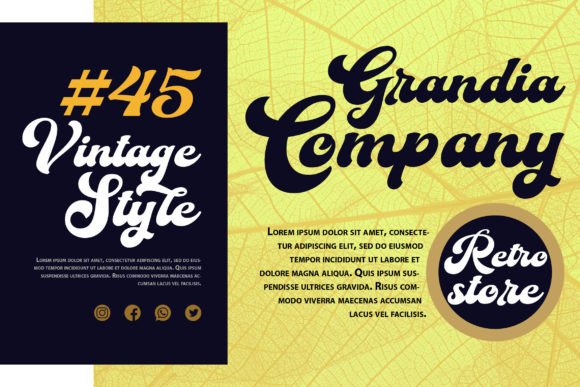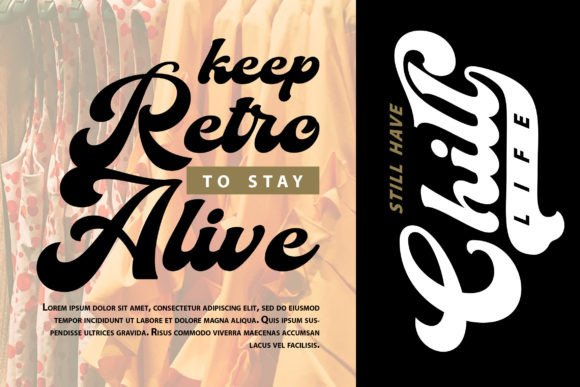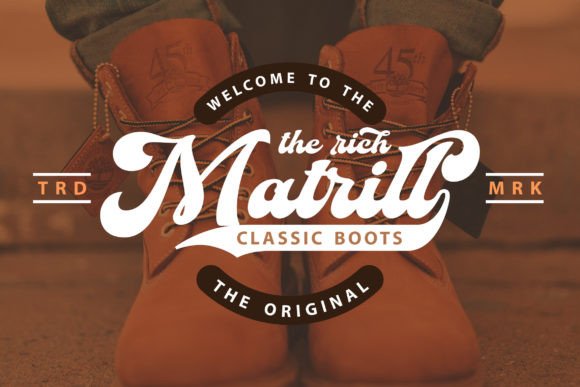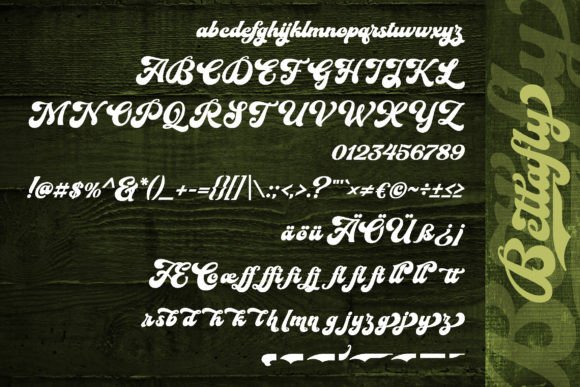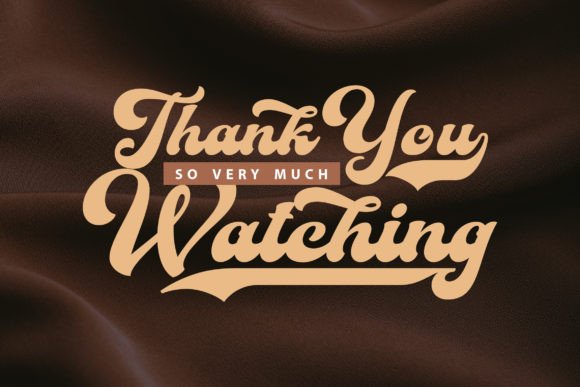
Bettafly Font: Elevate Your Creativity with Elegance
In the world of typography, a font can make all the difference in transforming a simple design into a masterpiece. For those seeking a touch of elegance and magic in their creative projects, the Bettafly Font is an exceptional choice. This carefully crafted script font is designed to bring a sense of sophistication and whimsy to any design, making it perfect for a wide range of applications, from Instagram posts to DIY calligraphy projects.
The Charm of Bettafly Font
Bettafly is more than just a font; it’s a tool for artists, designers, and crafters to express their creativity and bring their ideas to life. Its magical script style, infused with elegance, ensures that any project stands out. Whether you’re working on a digital platform or a handmade craft, Bettafly Font adds a unique charm that captivates the audience.
One of the key advantages of the Bettafly Font is its versatility. It’s incredibly adaptable, making it suitable for various creative projects. Here are a few ways you can use Bettafly Font to elevate your work:
- Instagram and Social Media: In the digital age, standing out on social media is crucial. Bettafly Font can help you create eye-catching Instagram posts, stories, and bio quotes that reflect your personality or brand.
- DIY Projects: For crafters and DIY enthusiasts, Bettafly Font can add a professional touch to handmade cards, journals, and home decor items. Its calligraphy script style brings a level of sophistication to any craft project.
- Branding and Marketing: Businesses can also benefit from using Bettafly Font in their branding and marketing materials. Its unique and elegant style can help create a memorable brand identity.
Why Choose Bettafly Font?
With so many fonts available, why should you choose Bettafly for your projects? Here are a few compelling reasons:
- Elegance: Bettafly Font exudes elegance, making it perfect for projects that require a touch of sophistication.
- Readability: Despite its script style, Bettafly Font maintains a high level of readability, ensuring that your message is conveyed clearly.
- Uniqueness: In a sea of common fonts, Bettafly stands out with its unique magical script style, ensuring your projects don’t go unnoticed.
Tips for Using Bettafly Font
To get the most out of Bettafly Font, consider the following tips:
- Pair it Wisely: Combine Bettafly Font with complementary fonts to create visual interest. A simple sans-serif font can work well for headings and body text.
- Play with Colors: Don’t be afraid to experiment with different colors. Bettafly Font looks stunning in metallic ink, pastels, and bold colors.
- Experiment with Sizes: Varying font sizes can add depth and hierarchy to your design. Use larger sizes for headings and smaller sizes for body text.
Bettafly Font is a versatile and elegant script font that can transform your creative projects into true pieces of art. Its magical touch and sophisticated style make it an excellent choice for designers, crafters, and anyone looking to add a touch of elegance to their work. Whether you’re creating digital content or handmade crafts, Bettafly Font is sure to elevate your creativity and make your projects stand out.